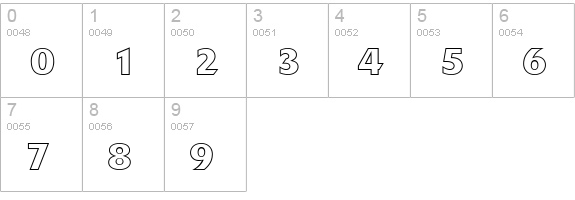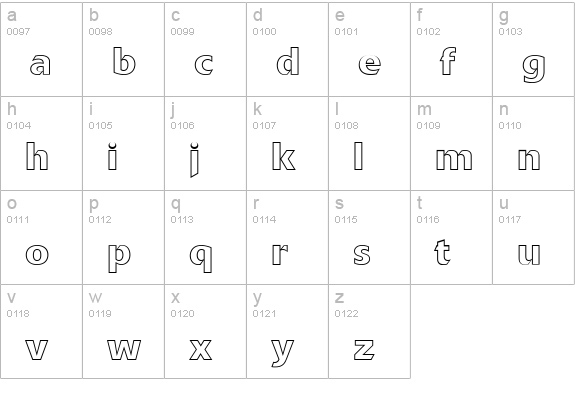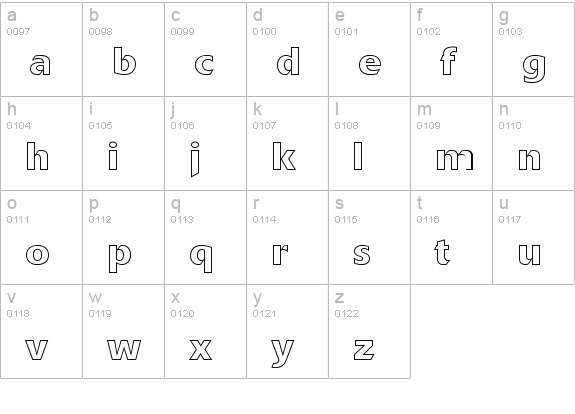
Delta Jaeger (R) Outline font is a modern and sleek typeface designed for a wide range of projects. Its clean lines and geometric shapes make it perfect for creating eye-catching designs that stand out. The outline style adds a unique touch to any text, giving it a contemporary and sophisticated look. This font is versatile and can be used for various purposes, such as branding, advertising, packaging, and more. It is designed to be easily readable at any size, making it ideal for both digital and print applications. The best part about Delta Jaeger (R) Outline font is that it is free to download at FontsMarket.com. This means you can access this high-quality font without any cost, allowing you to enhance your projects with a professional and stylish typeface. Don't miss out on this opportunity to elevate your designs with Delta Jaeger (R) Outline font today!